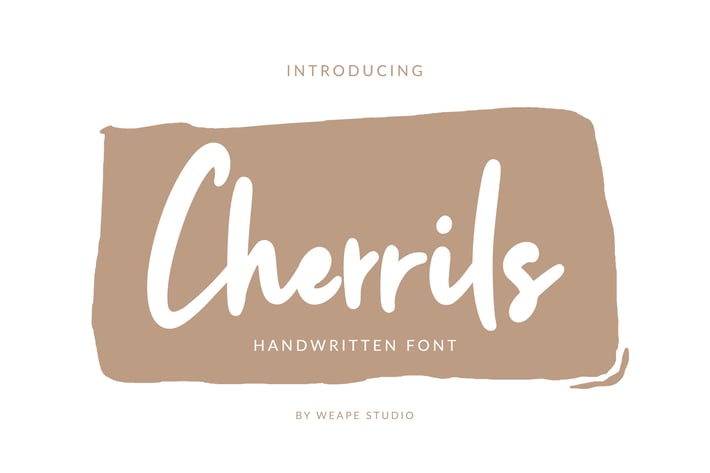
Cherrils - Handwritten Font
Introducing Cherrils Script, with the natural stroke of hand quick. You can use and enjoy Cherrils, for promotional material and anything.
And this font perfect for handwritten quotes, product packaging, fashion magazine, logo, photography, merchandise, branding projects, poster, social media post, book cover, flyers, and advertising. You can create easily and make it as if you wrote it yourself.
All fonts containing upper & lowercase characters, numerals, ligatures, and a large range of punctuation.